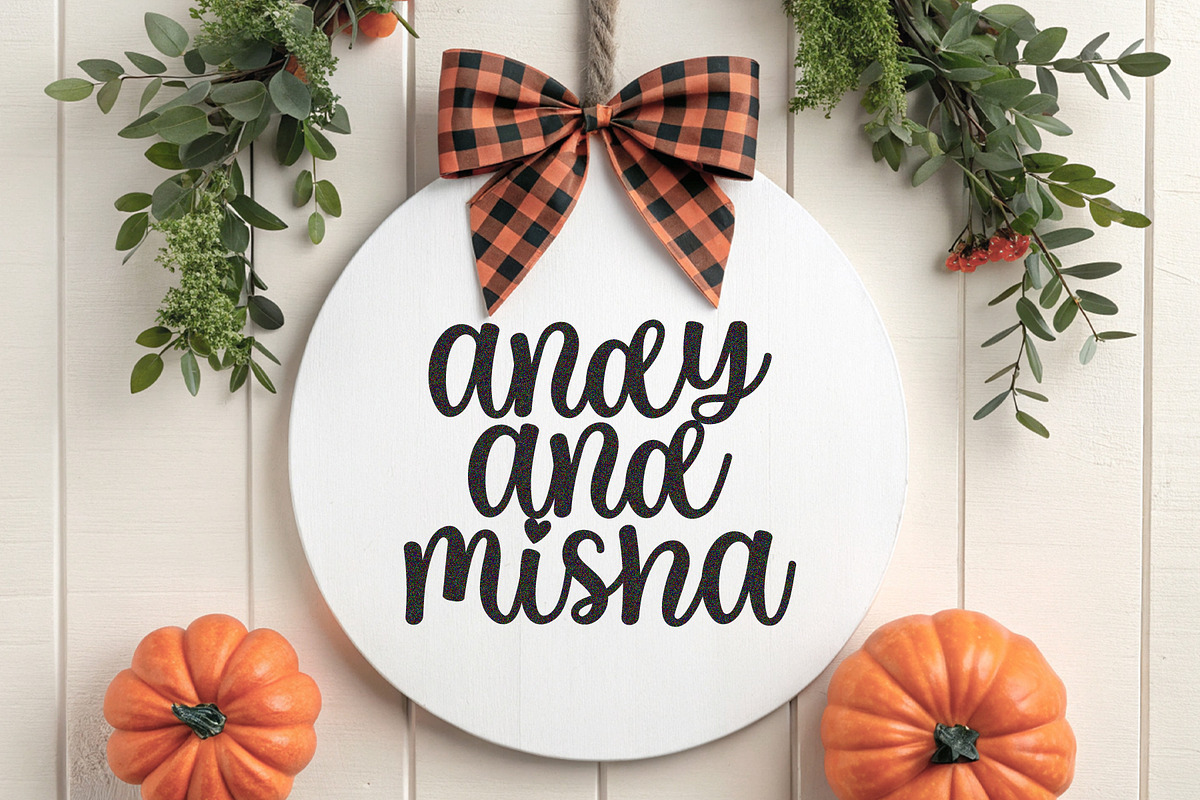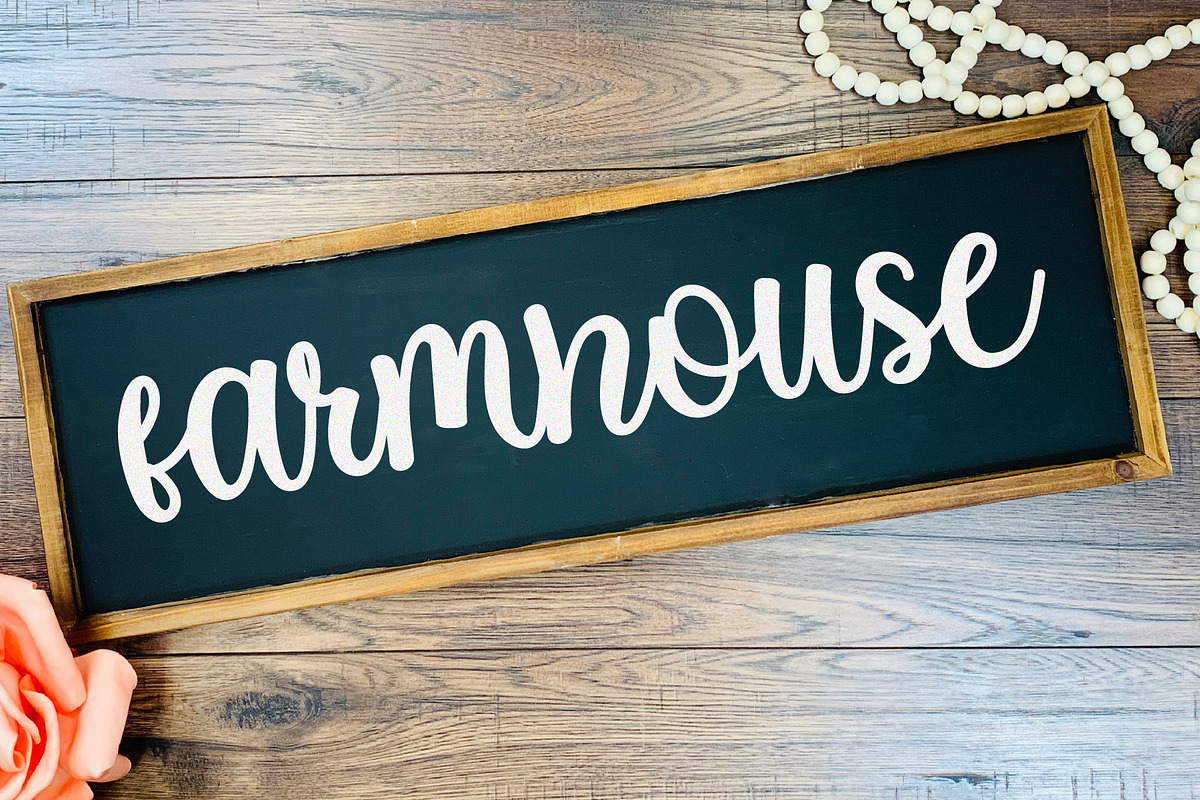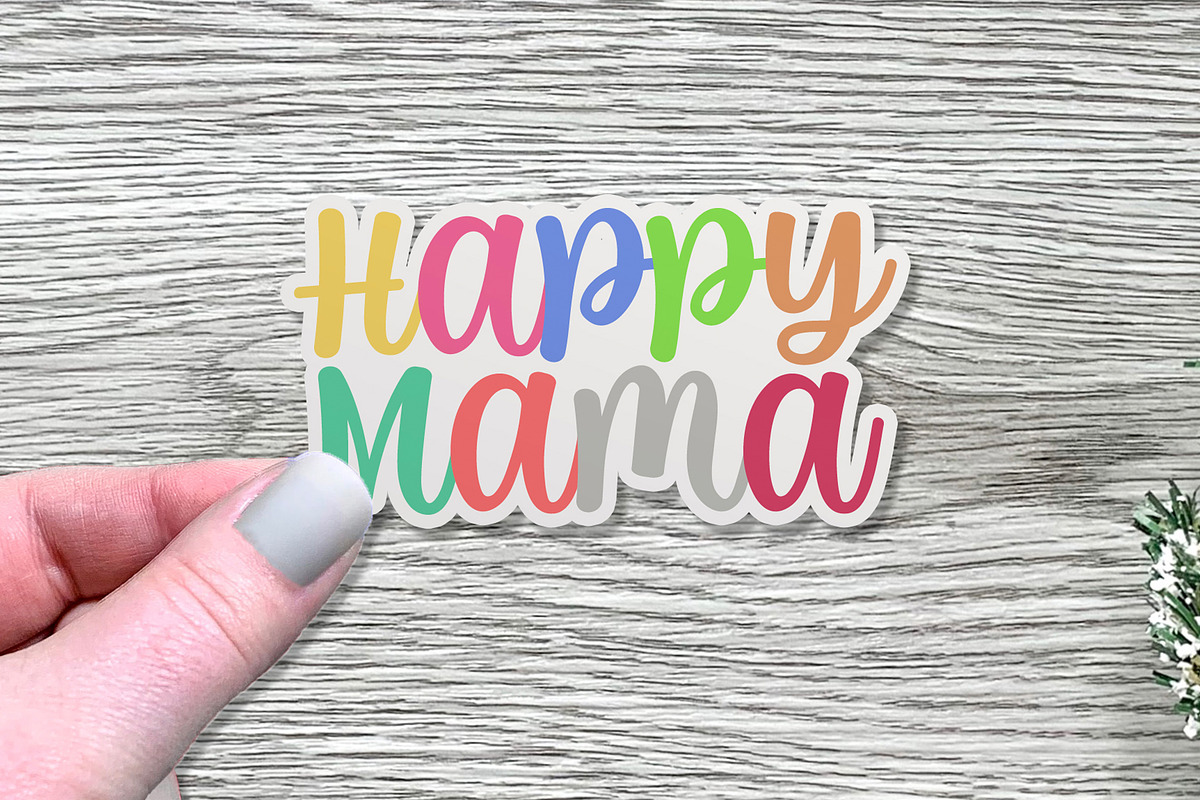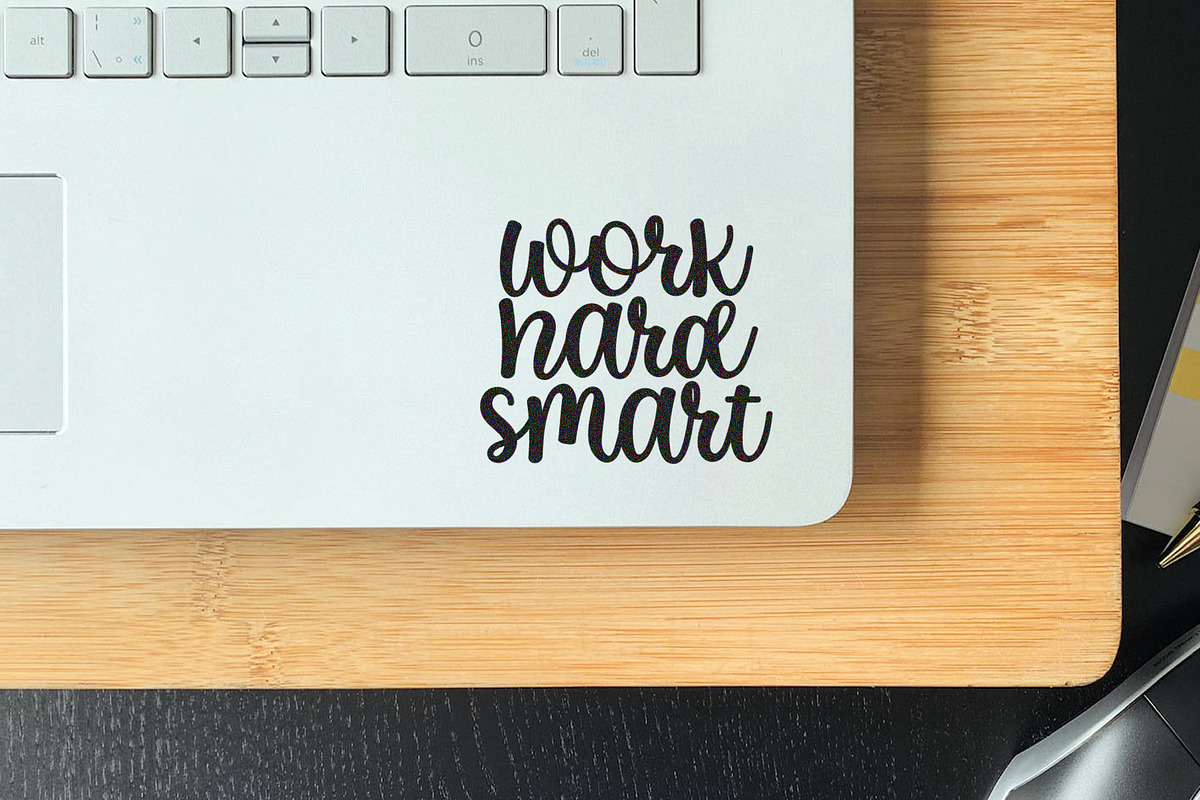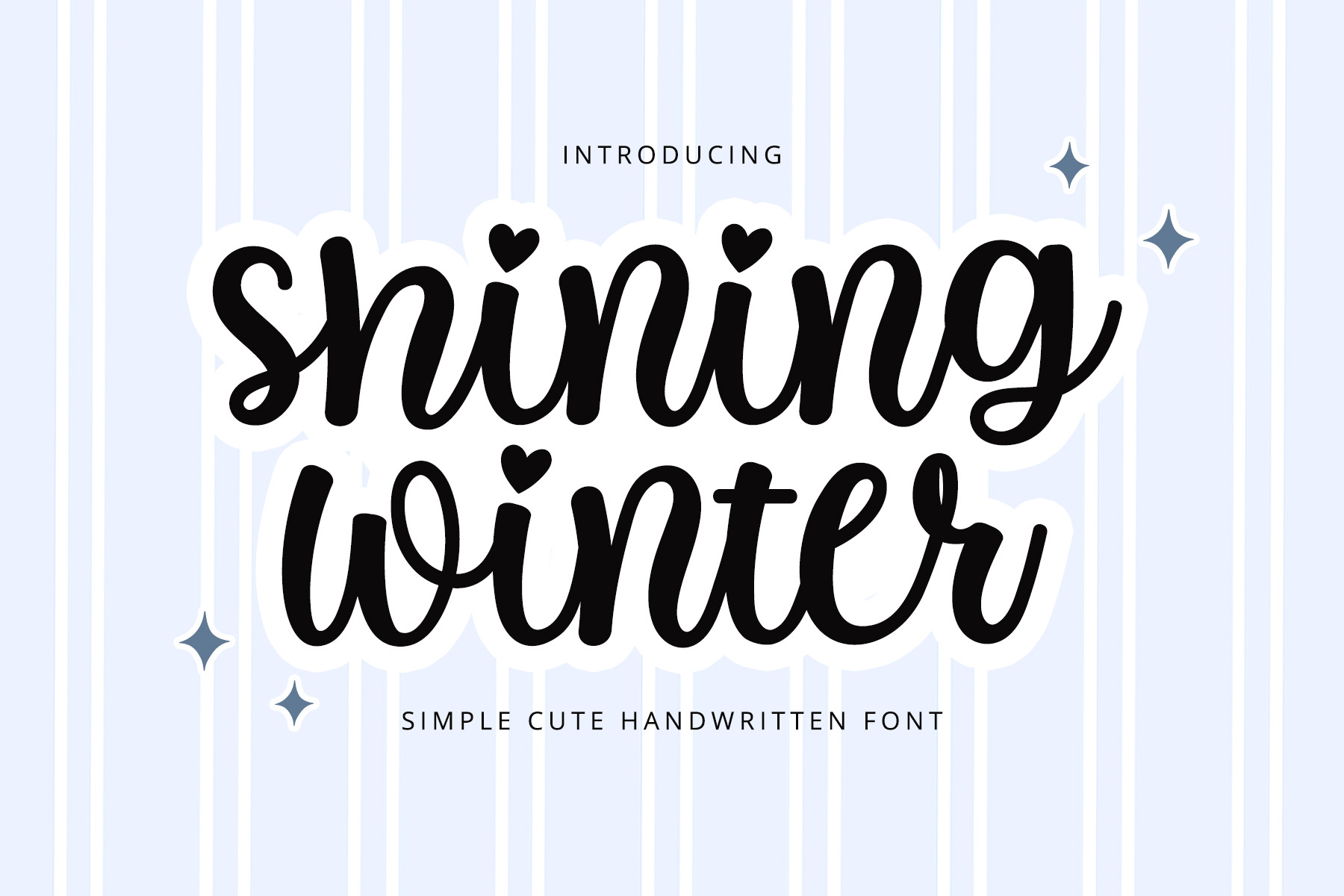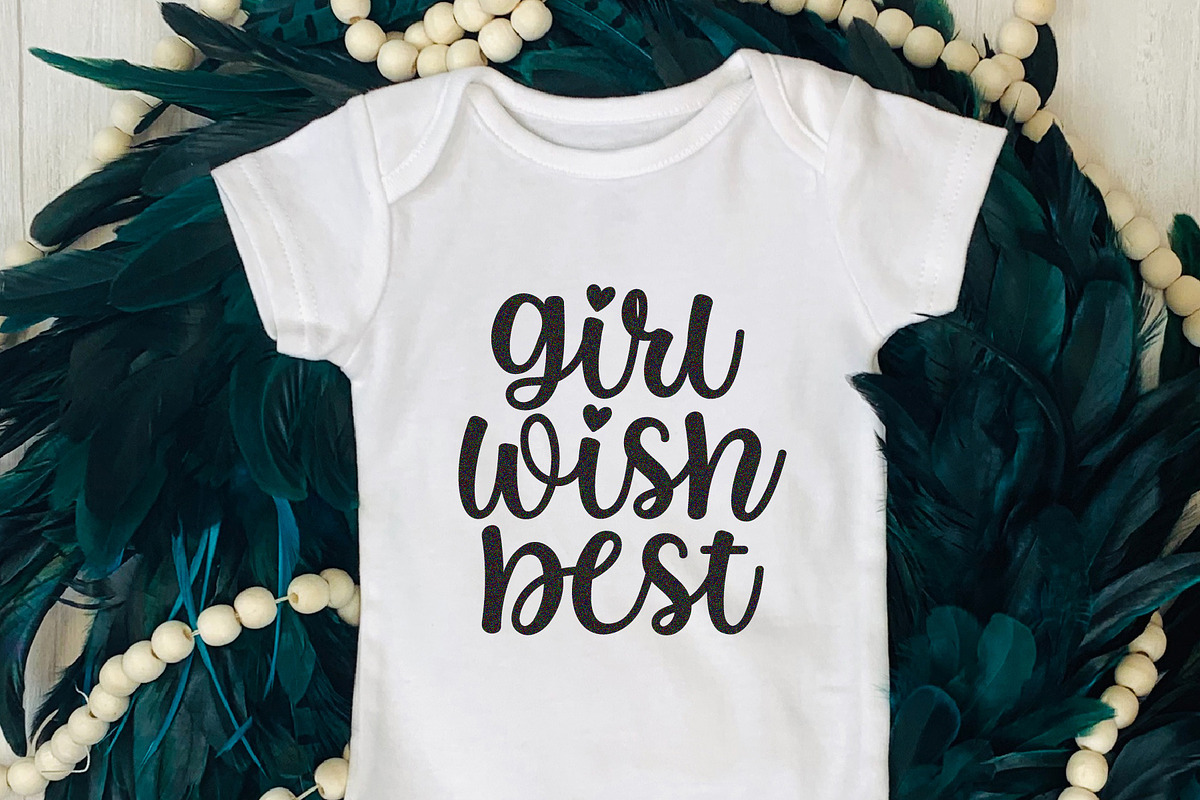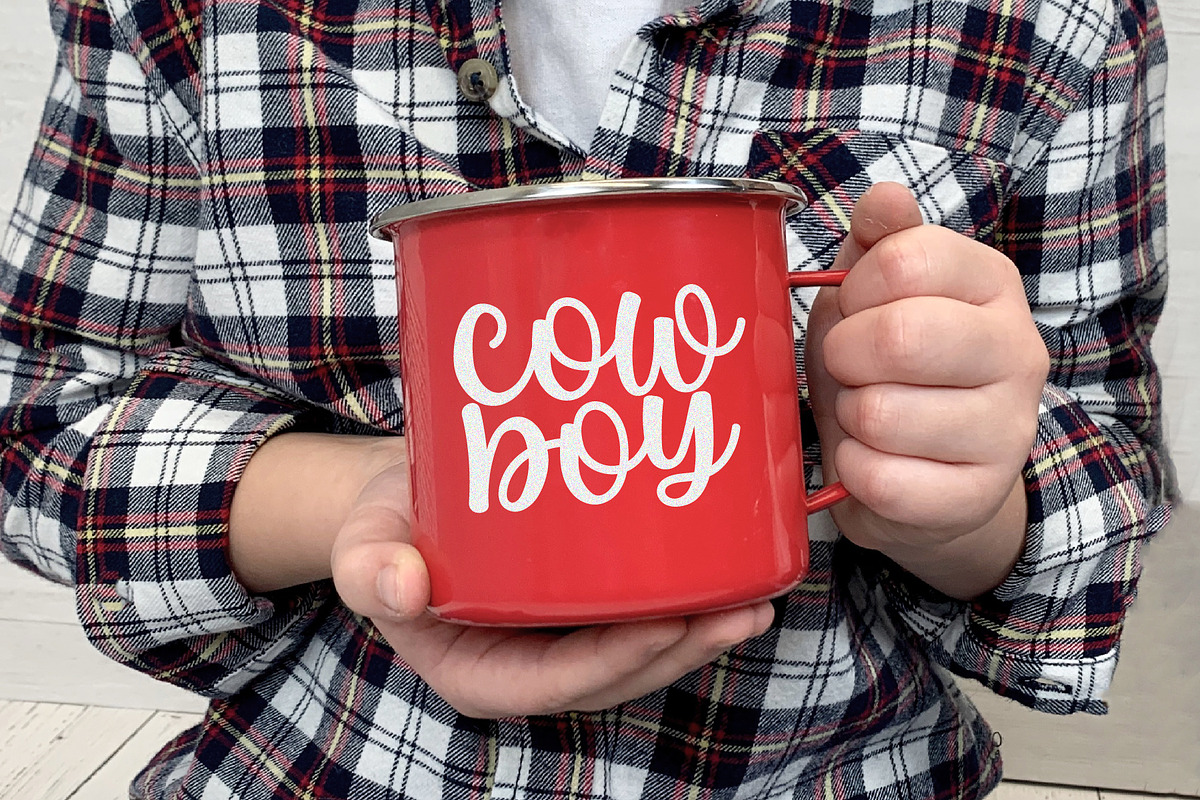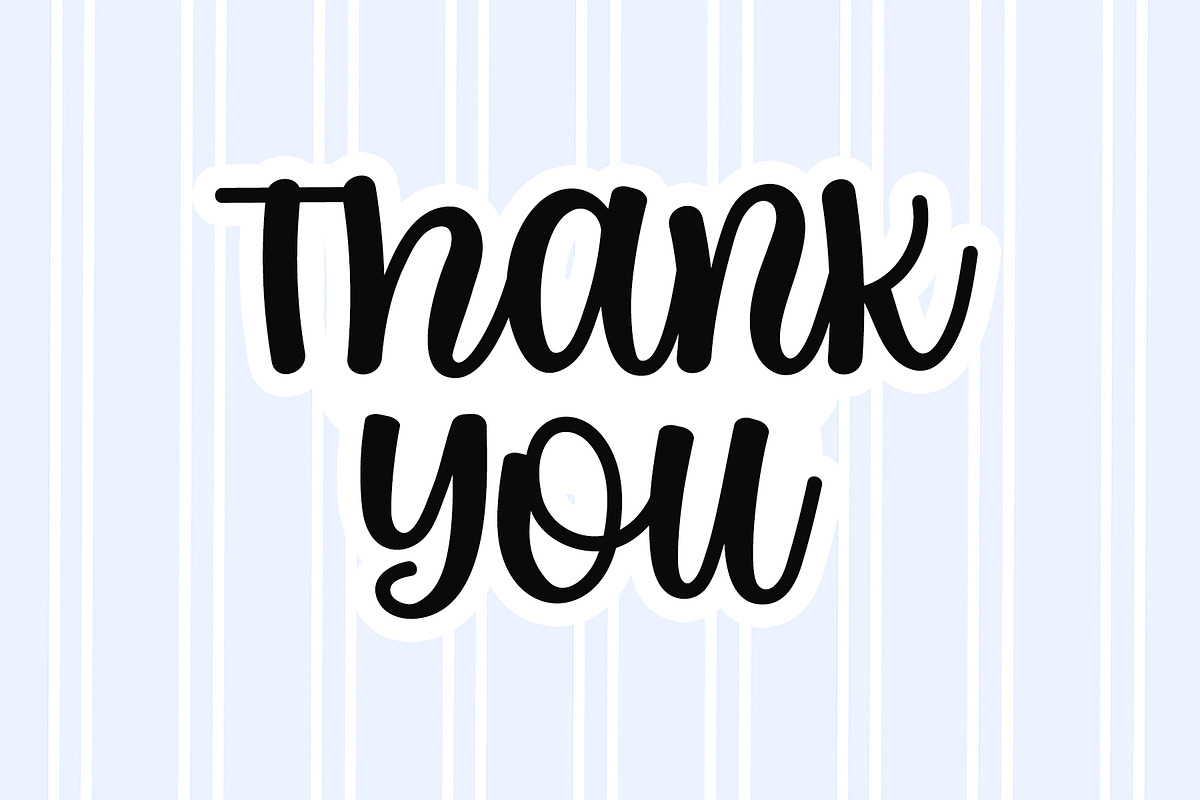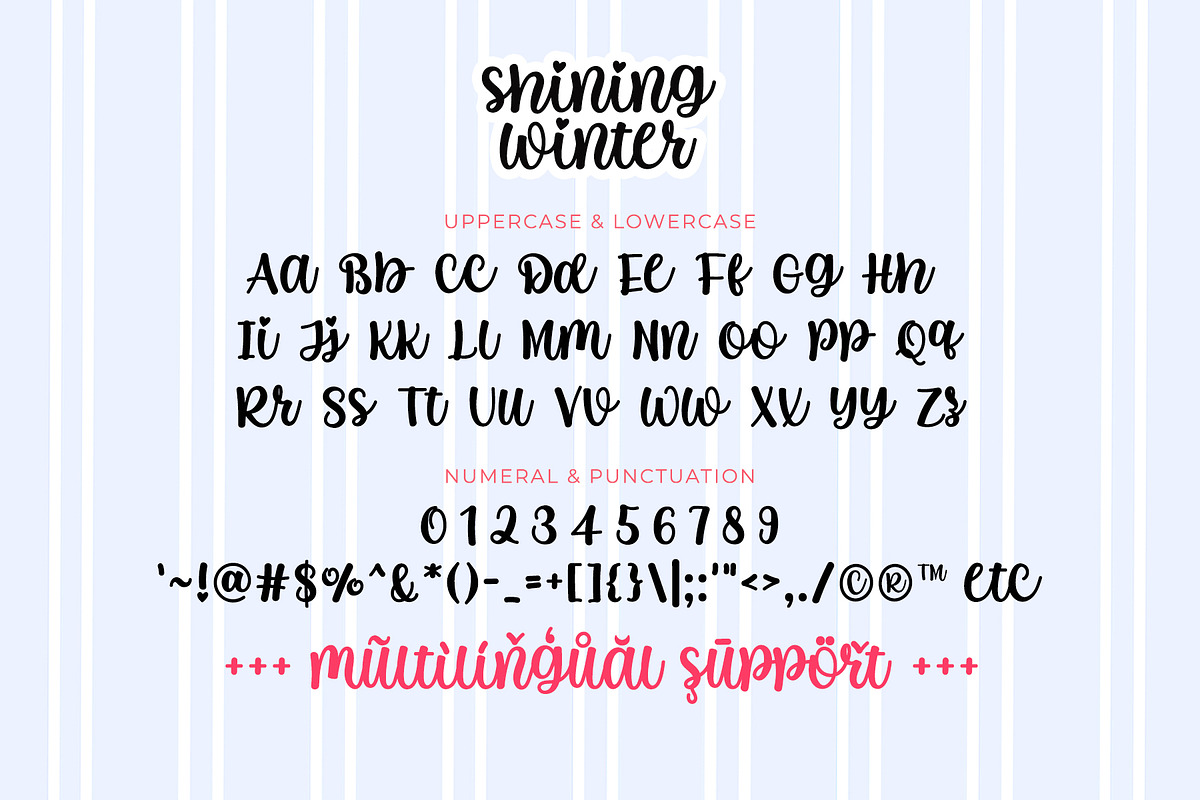
Shining Winter - Cute Script Font
Shining Winter is simple and cute handwritten font. This font radiates fun, natural, and bounciness.
Shining Winter is pretty for design that needs simple handwritten touch, such as wedding design, invitation, signature, logo, birthday, t-shirt design, crafting, sticker, sublimation, and many more.
- Most Multilingual Accent